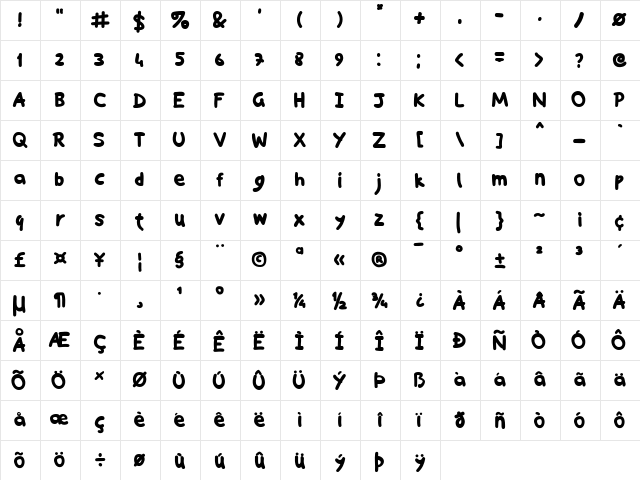
SnapHand flows with the natural rhythm of handwritten lettering, making it ideal for designs that call for warmth and personal expression.
Font Pairing: Combine SnapHand with a simple geometric sans for maximum contrast - the tension between flowing curves and clean structure is a classic typographic pairing.
Pro Tip: Use SnapHand for short runs of text - names, titles, or taglines. Extended body copy in script faces tires the eye quickly.